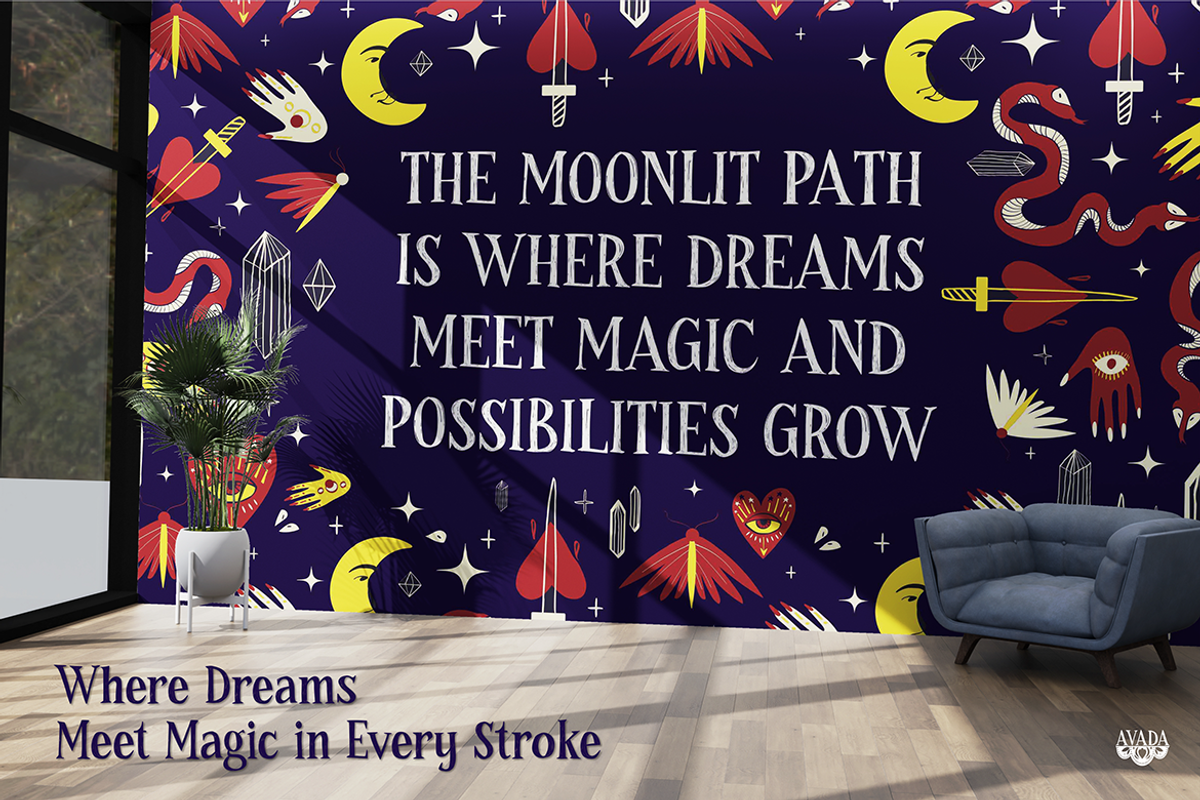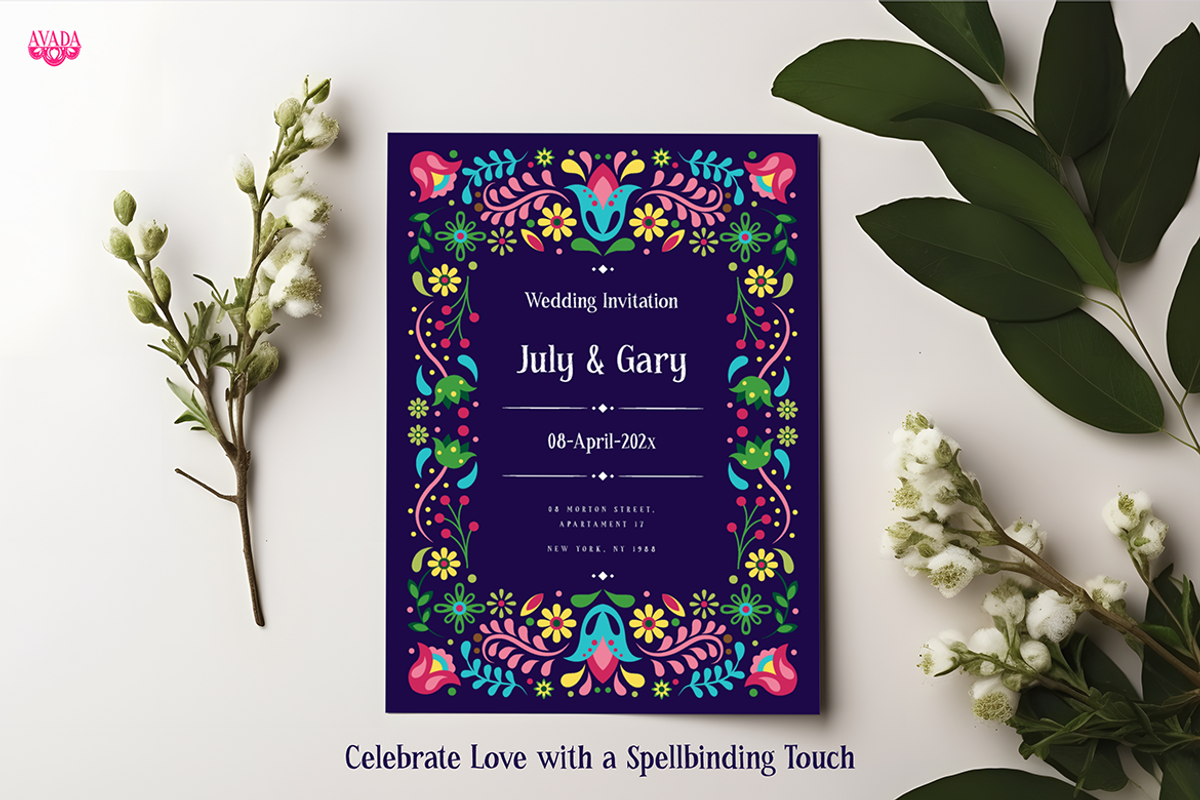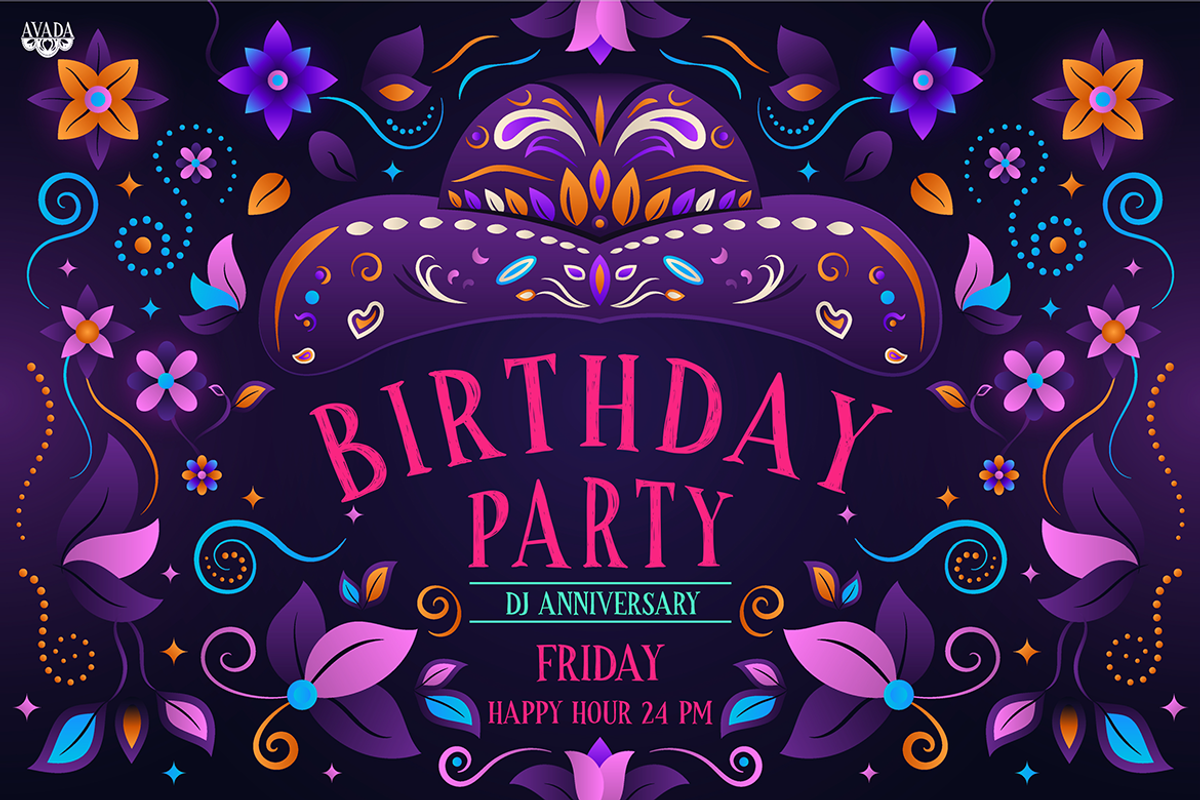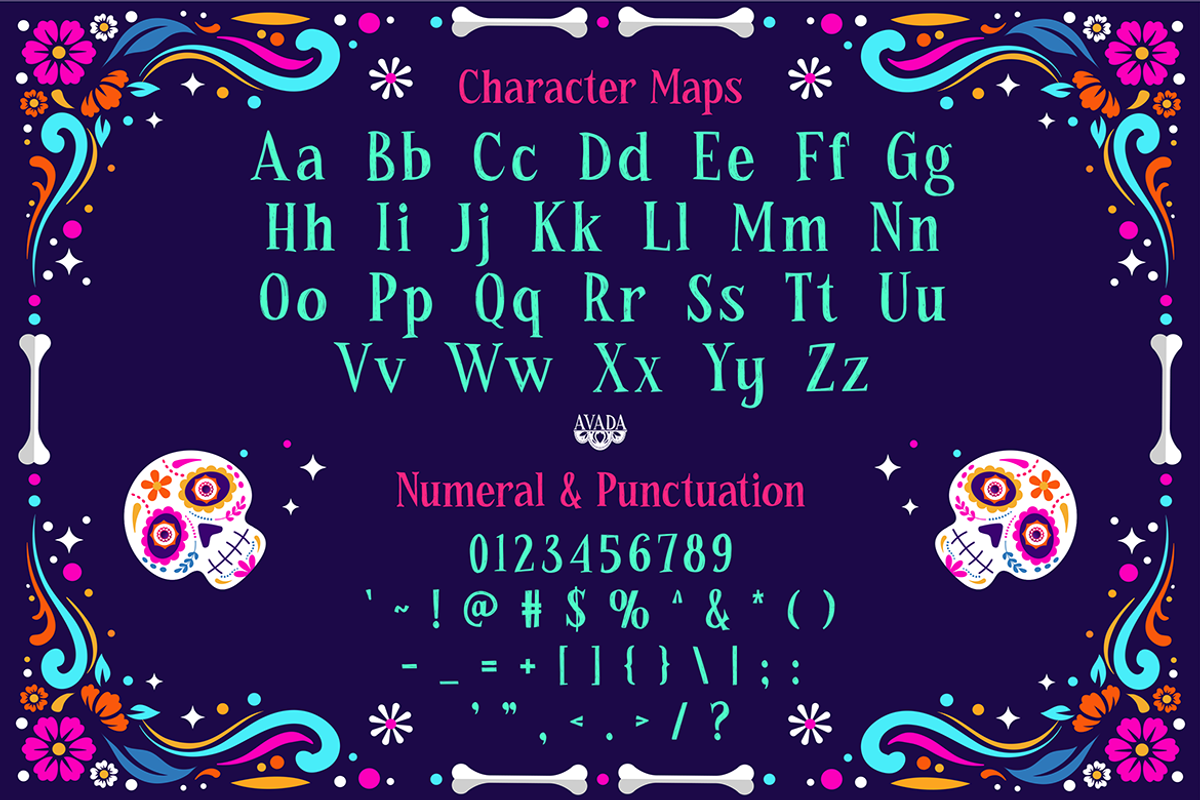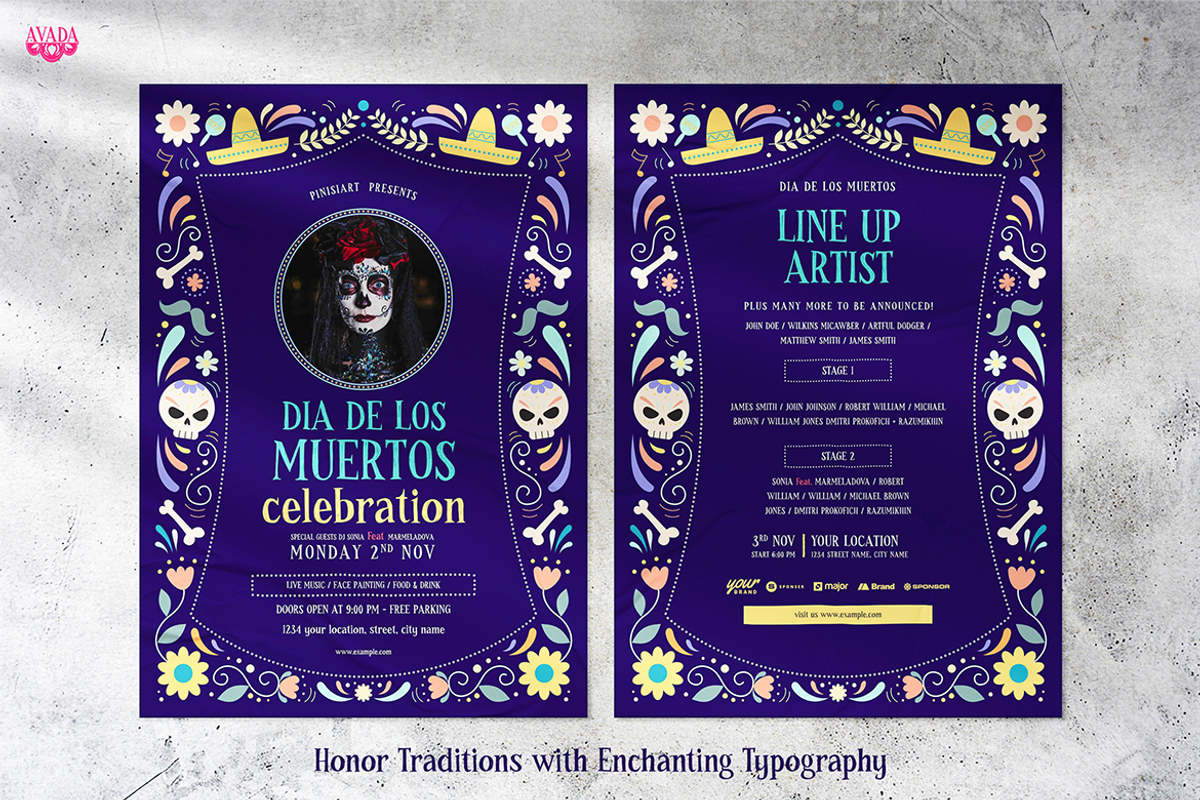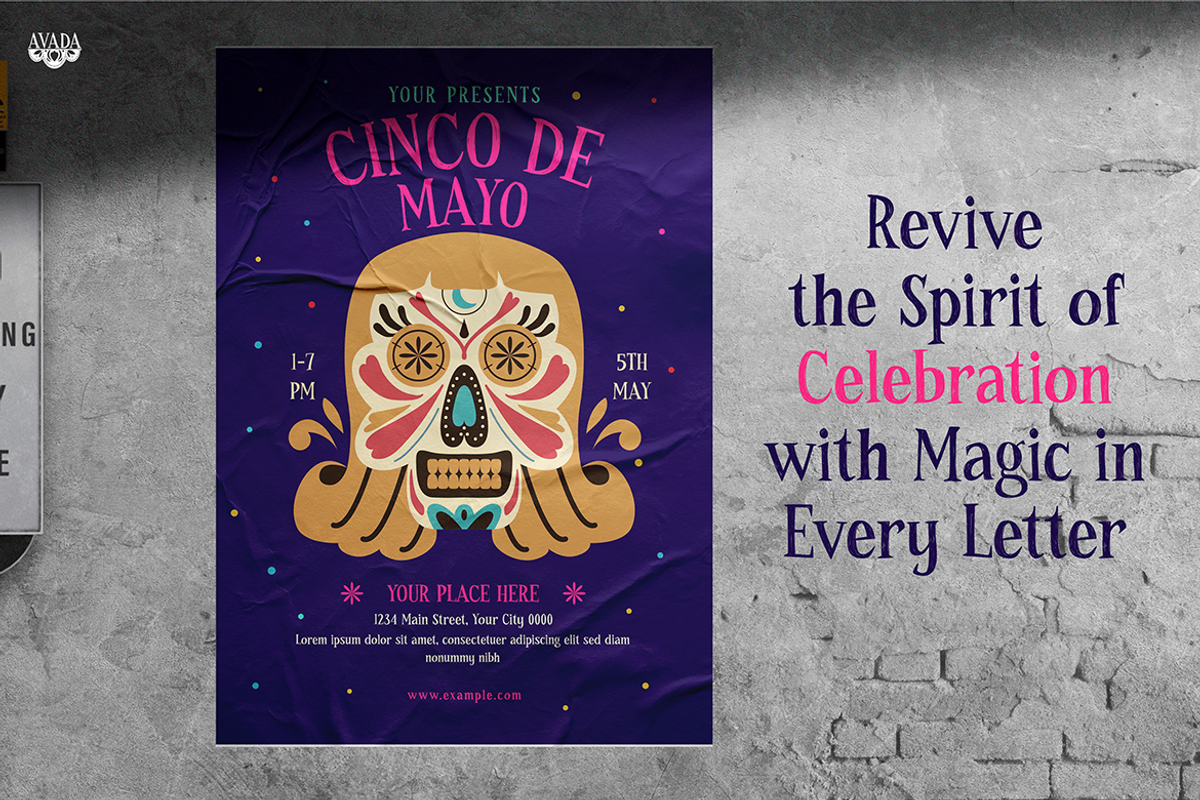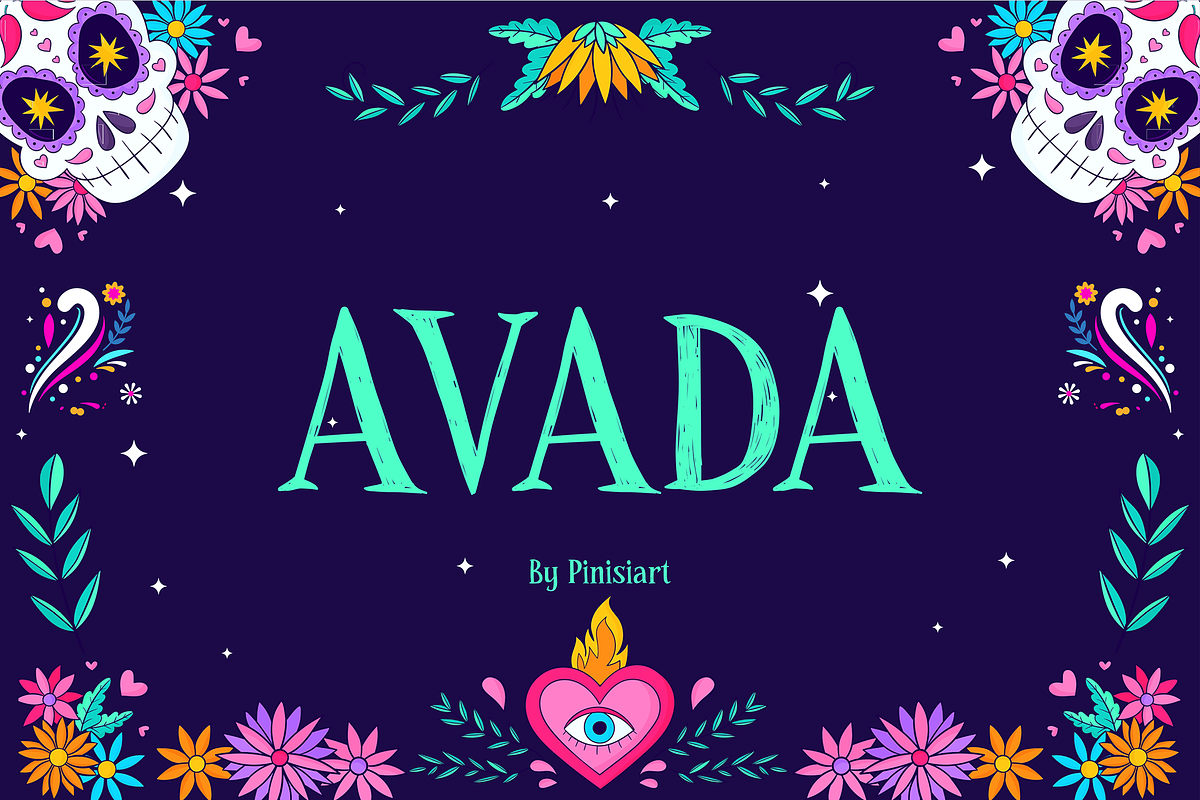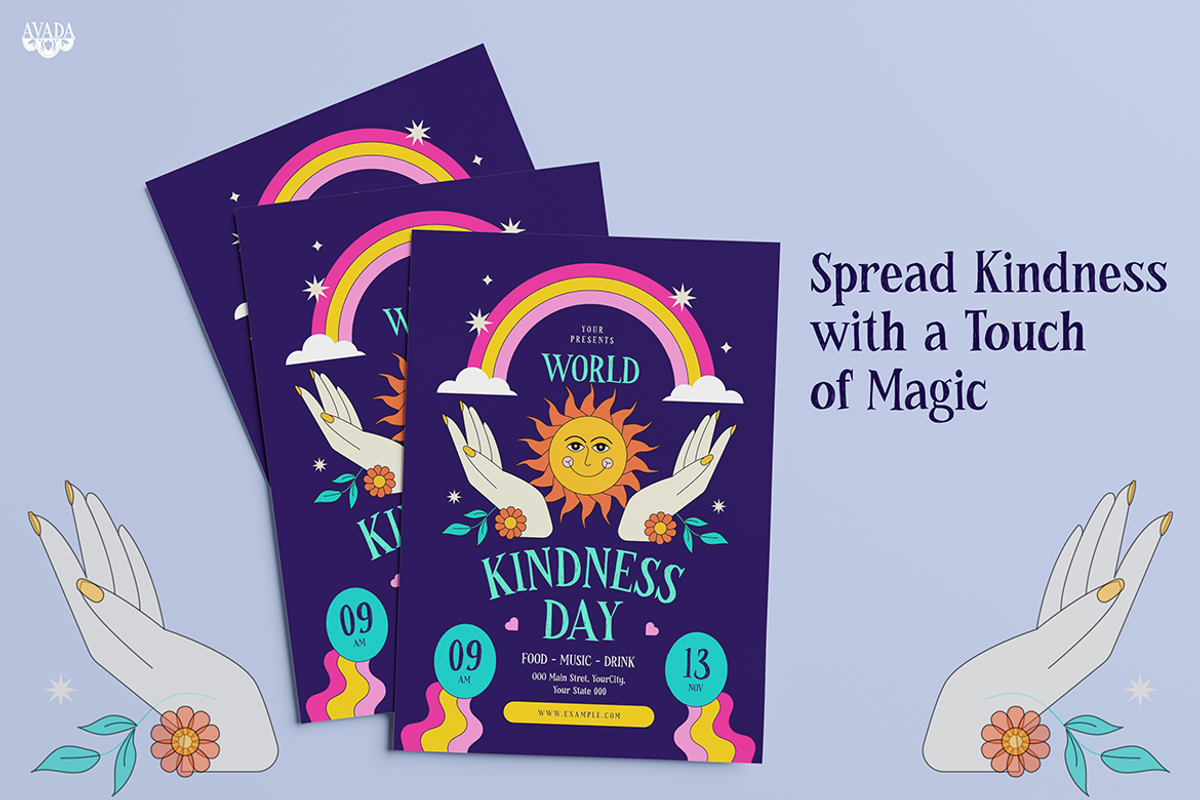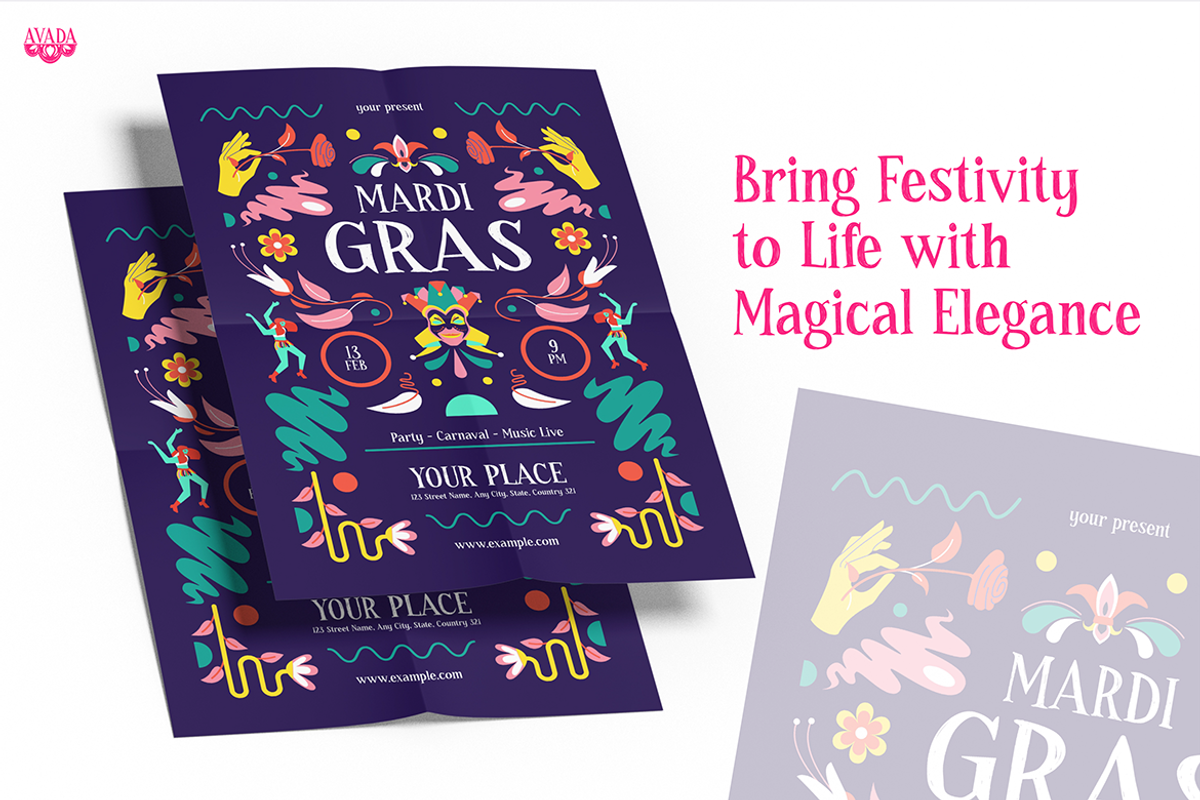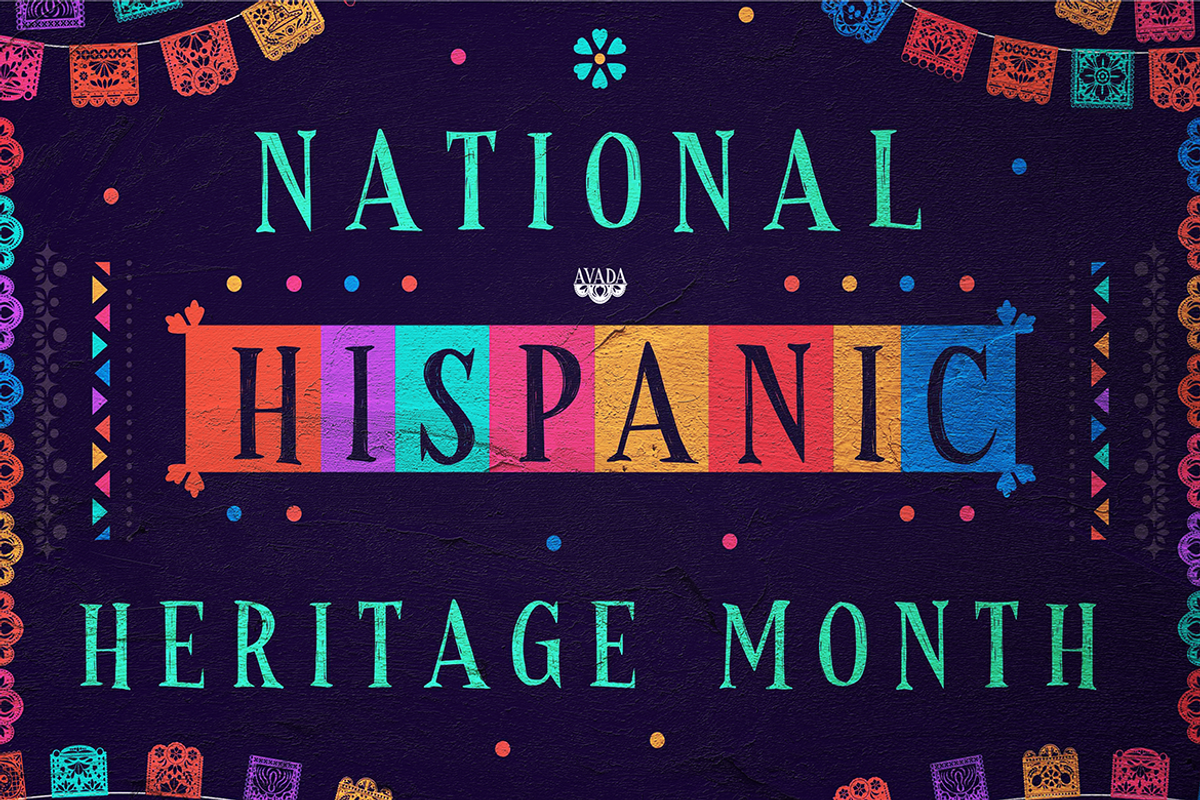
AVADA
Cute Font AVADA is a playful and charming typeface that brings a fun, whimsical touch to any design project. The font features smooth, rounded lines with a hand-drawn look, which makes it feel warm and friendly. Its light teal color stands out against dark backgrounds, creating a modern yet soft aesthetic. Additionally, the subtle texture adds to its casual, handmade feel, making it perfect for more creative uses.
Moreover, AVADA is surrounded by colorful floral designs and decorative skulls, inspired by “Día de los Muertos” art. These details give the font a lively, joyful atmosphere. The smooth curves, with no sharp edges, make it especially inviting. Despite its playful style, AVADA remains easy to read, which ensures that it works well for both headlines and body text. Furthermore, it’s versatile for both digital and print media, whether you’re designing logos, invitations, posters, or websites.